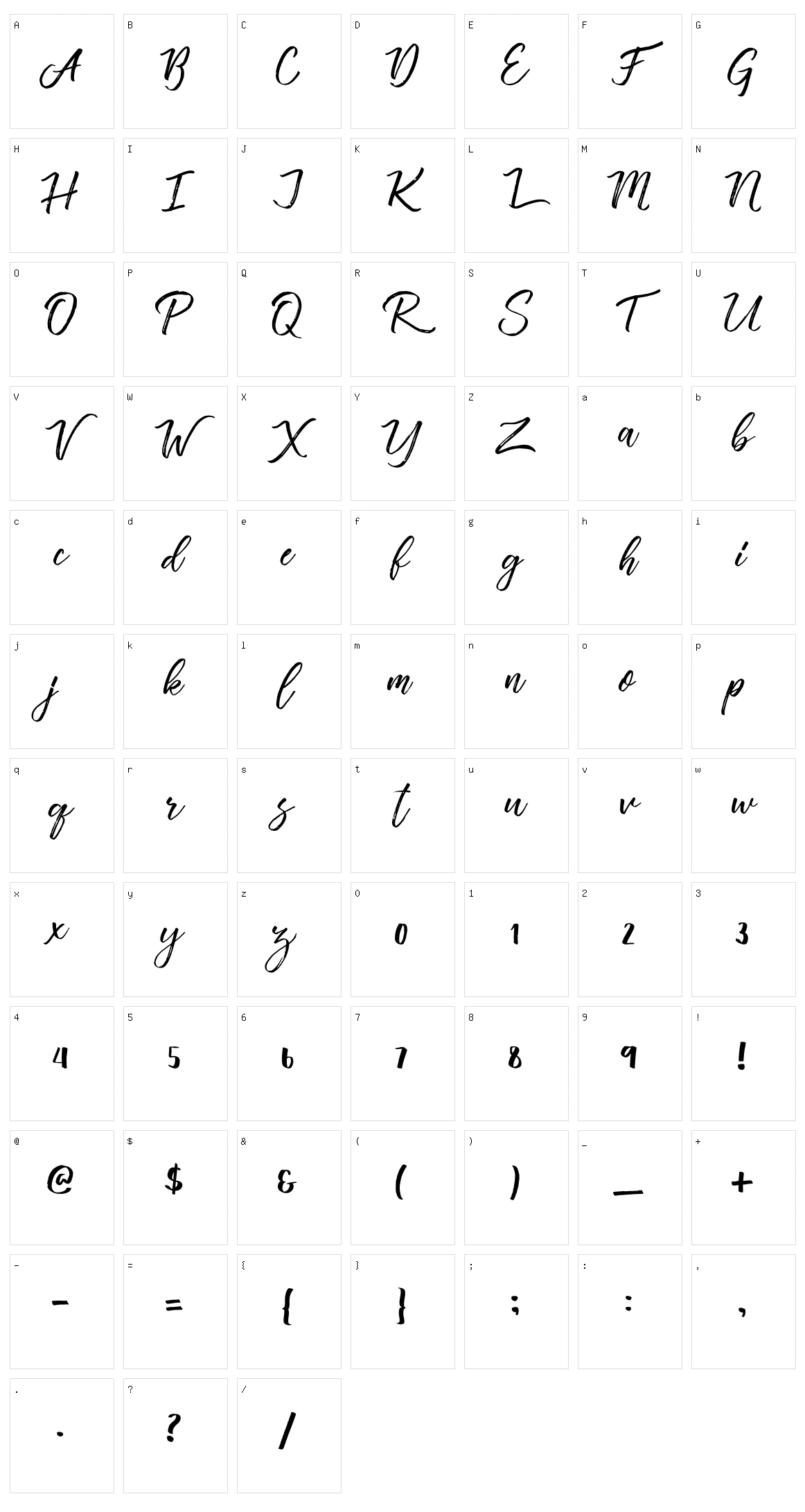
The free font Vincentia is carefully designed by Drhd Studio, showcasing a thoughtful balance of creativity and usability and falls under the Script font style. When you download the ZIP file, it contains only 194.68 KB of font files, making it lightweight and quick to download. Please review the license details below to understand permitted usage and distribution rights. If license information is not available, we recommend using this font for personal projects only or contacting the author directly for commercial usage permissions.